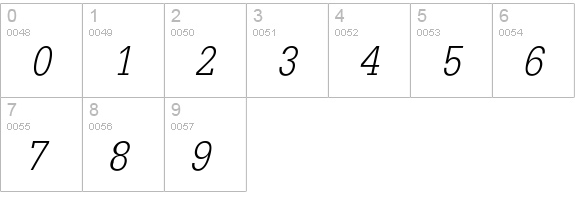
Glypha 45 Light Oblique Font Details
Glypha 45 Light Oblique is a refined, elegant, italic variant in the Glypha typeface family \xE2\x80\x94 well suited to elegant body text, refined sub-headings, and luxury branding.
Glypha 45 Light Oblique is a sleek and modern typeface that exudes elegance and sophistication. With its slanted design and clean lines, this font is perfect for adding a touch of style to any project. The subtle italicized look of Glypha 45 Light Oblique lends a sense of movement and fluidity, making it ideal for conveying a sense of dynamism and energy. What sets Glypha 45 Light Oblique apart is that it is not only visually appealing but also incredibly versatile. Whether you're using it for headlines, body text, or any other design element, this font will help you achieve a polished and professional look. And the best part? Glypha 45 Light Oblique is available for free download at FontsMarket.com. So, whether you're a designer looking to elevate your work or just someone who appreciates quality typography, you can easily access this stunning font without breaking the bank. Don't miss out on the opportunity to enhance your projects with Glypha 45 Light Oblique - download it now and see the difference for yourself!